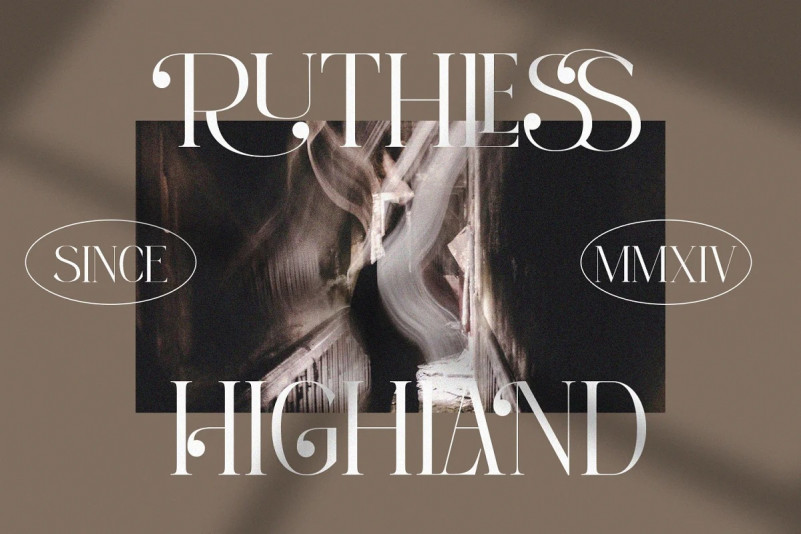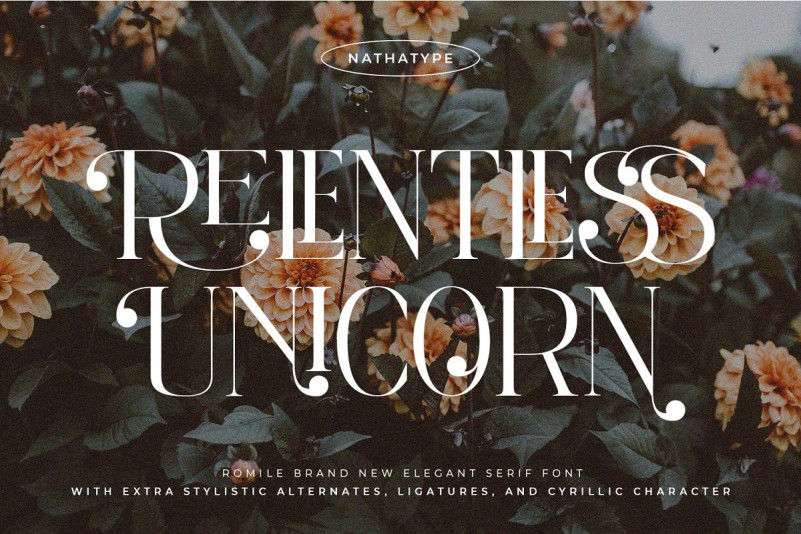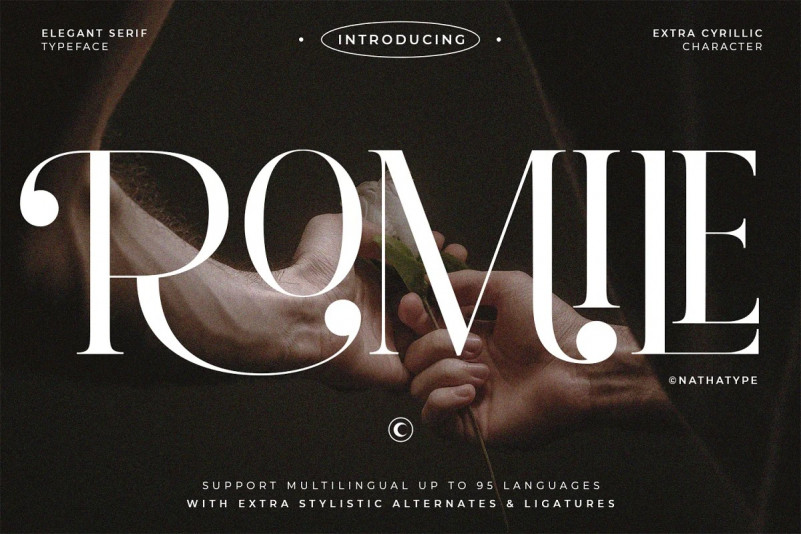
Romile Font
Romile is a elegant and bold serif font. It comes to be a single font all in uppercases. Thanks to the cursive and unique swirls at the end of some characters carries a sense of elegant looks. On the other hand, the weight of the font brings strength to any title or header you apply it to.